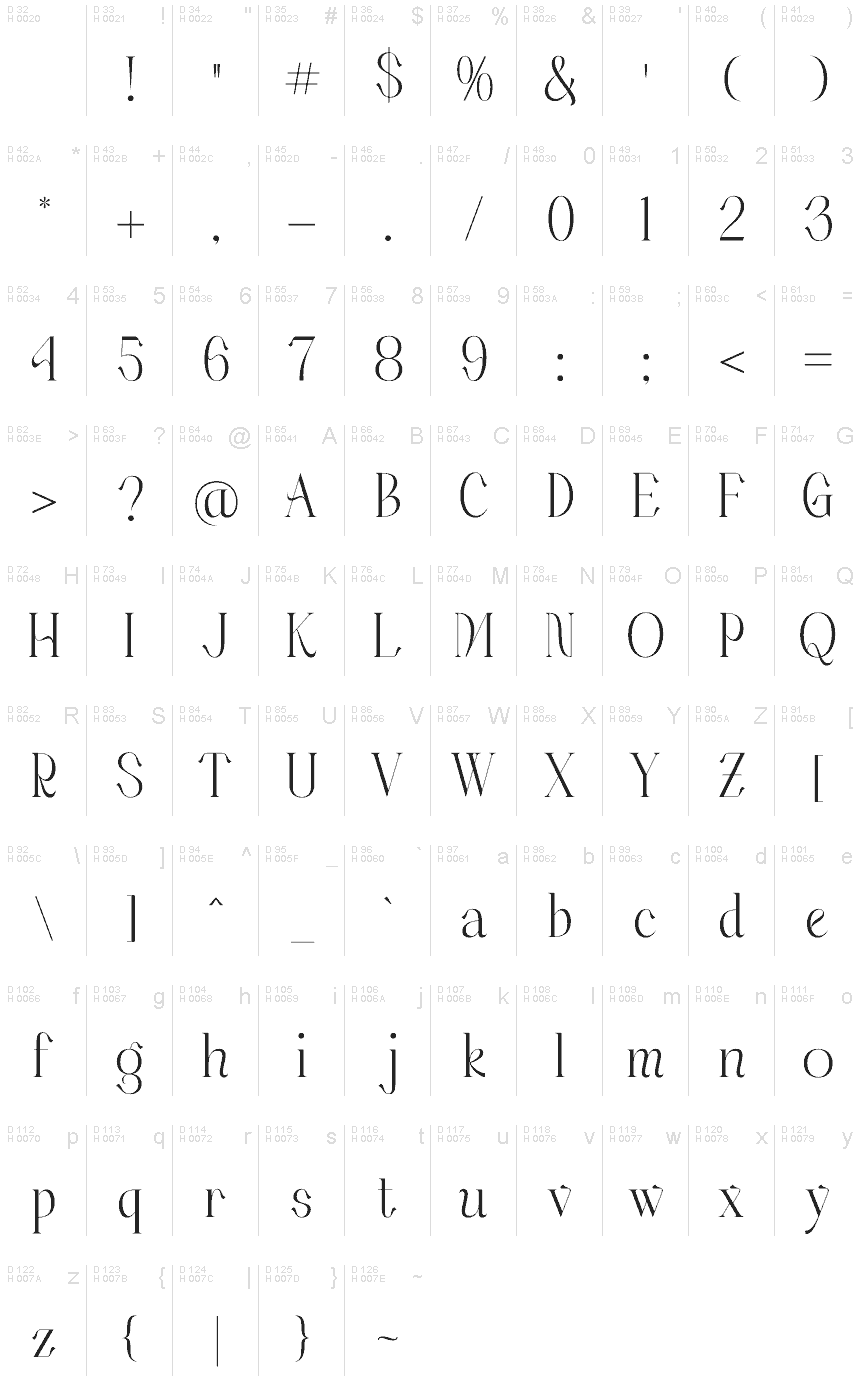
Makgery
Makgery font by Storytype Studio is a condensed, light serif font. Elegant yet lightweight, this typeface has an ornate and sophisticated appeal achieved thanks to thin letters and decorative elements. By mixing serif influences with modern appeal and artistic flourish, the most attractive well-placed lines are born.